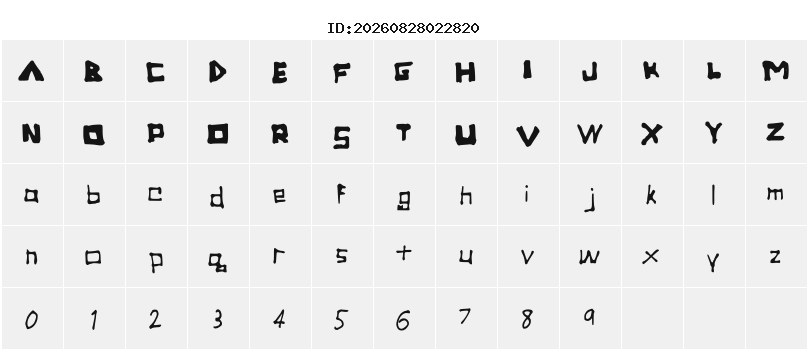
Tronica Preview
• Font Name: Tronica
• Full Font Name: Tronica
• PostScript Name: Tronica
About Tronica.ttf
Tronica.ttf is a modern, elegant sans-serif font designed for ultimate readability and visual harmony. Perfect for branding, headlines, web design, and print materials.